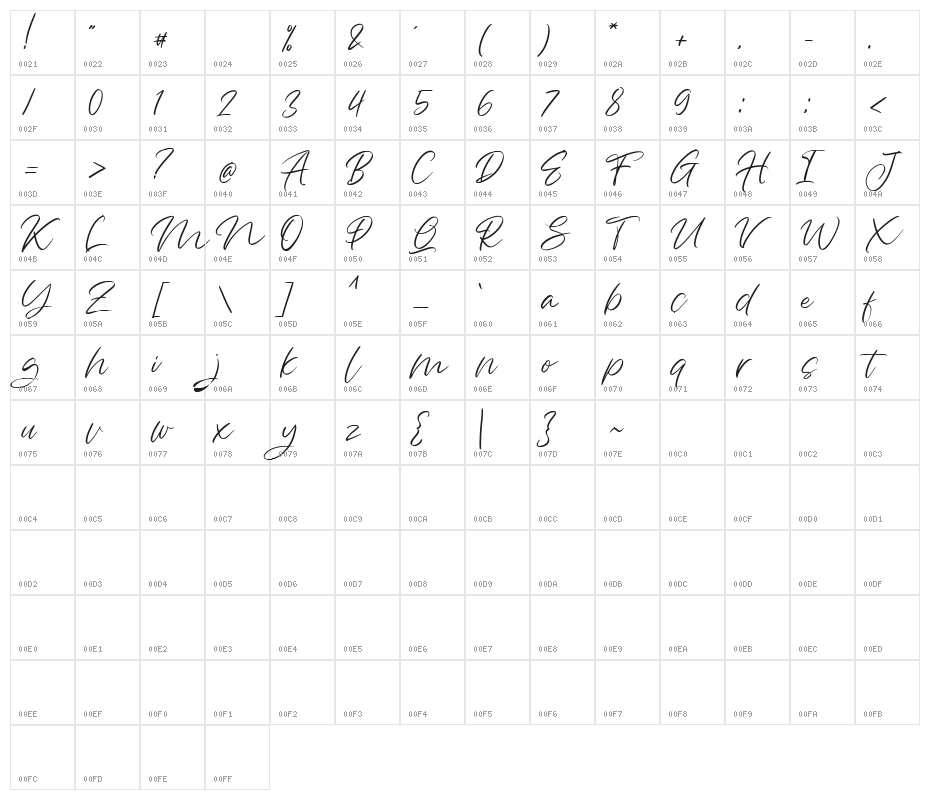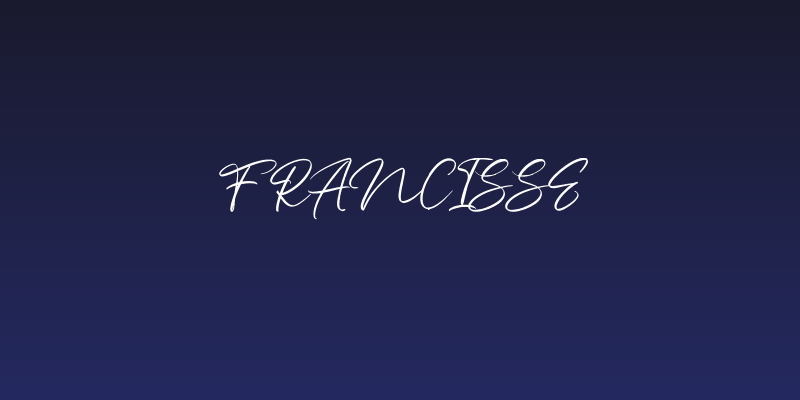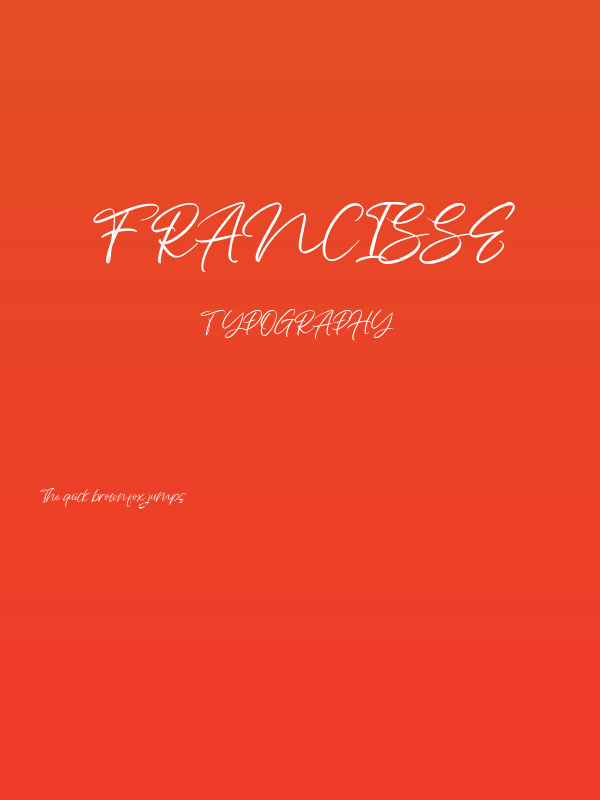
Francisse Font
Francisse Description
This font exhibits a flowing, cursive style with a handwritten appearance. The letters are elegantly connected, creating a sense of fluidity and movement. The uppercase characters are slightly more ornate, with extended flourishes that add a touch of sophistication. The lowercase letters maintain a consistent slant, enhancing the script-like quality. Numerals are clear and legible, maintaining the same stylistic curves as the alphabet. Special characters are designed to match the overall aesthetic, ensuring a cohesive look. The font's overall impression is one of elegance and grace, suitable for projects that require a personal or artistic touch.
| Overall Style | Elegant, Artistic |
| Proposed Projects | Ideal for wedding invitations, greeting cards, personal branding, and artistic projects. |